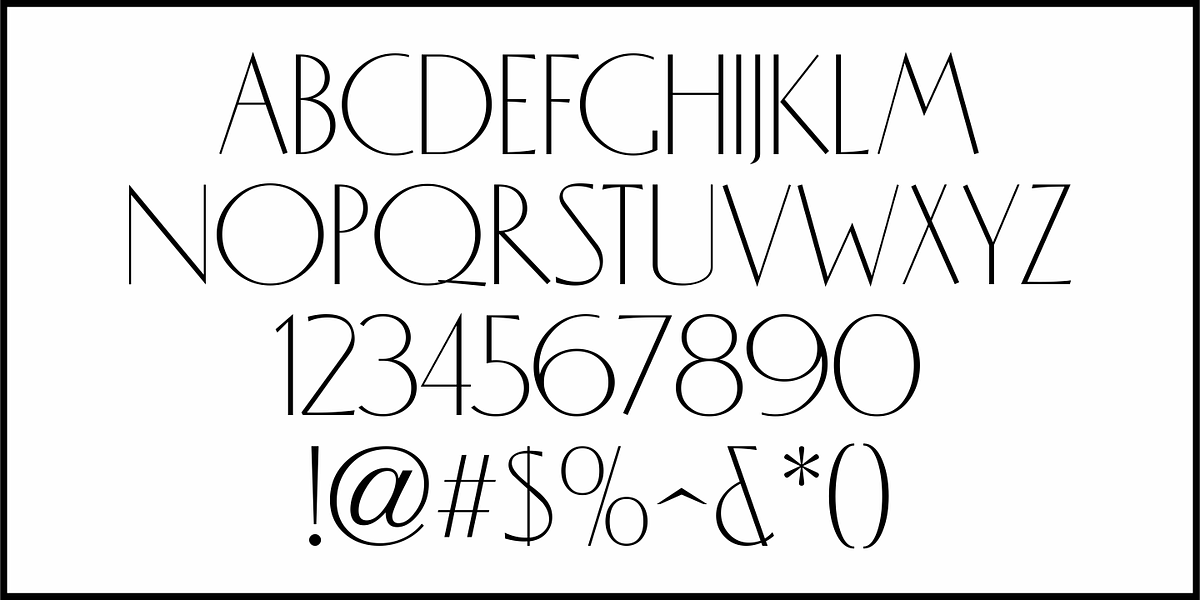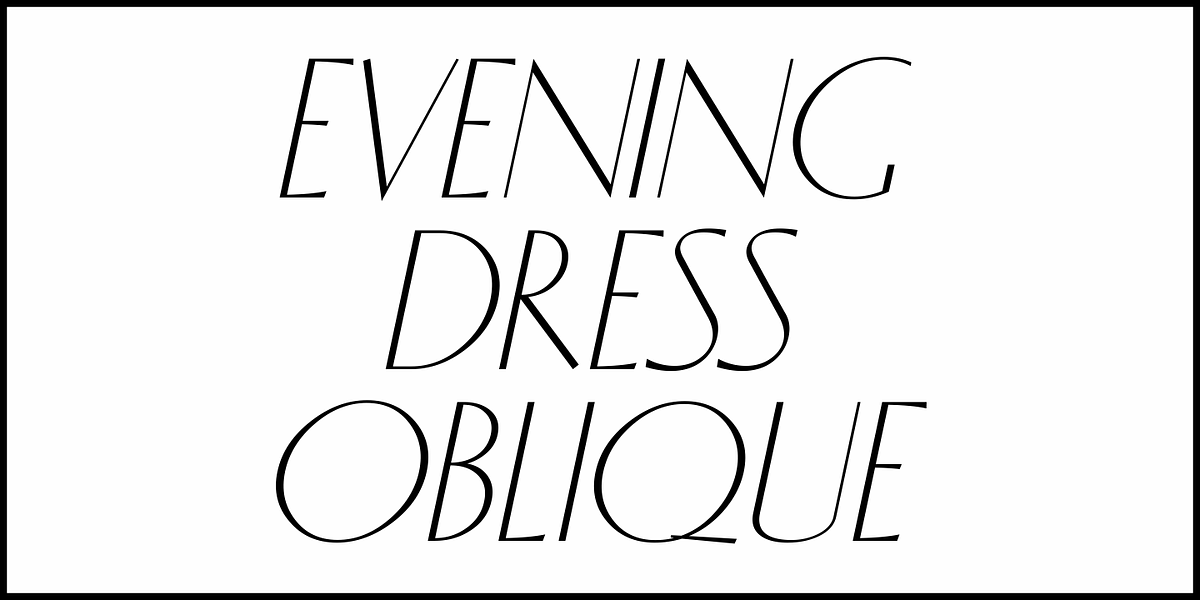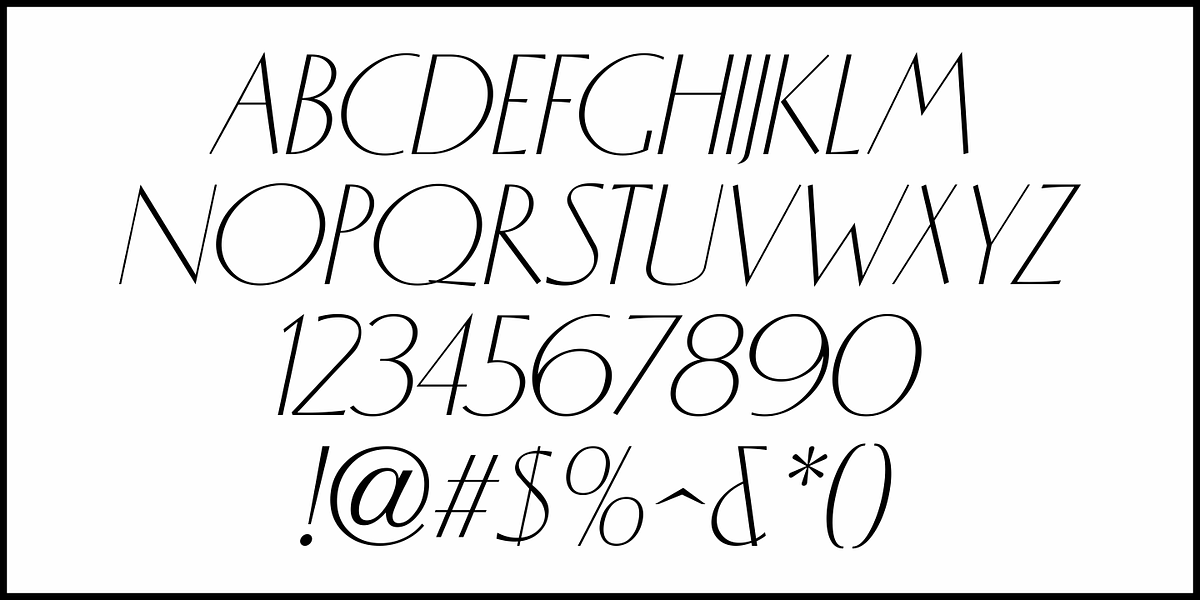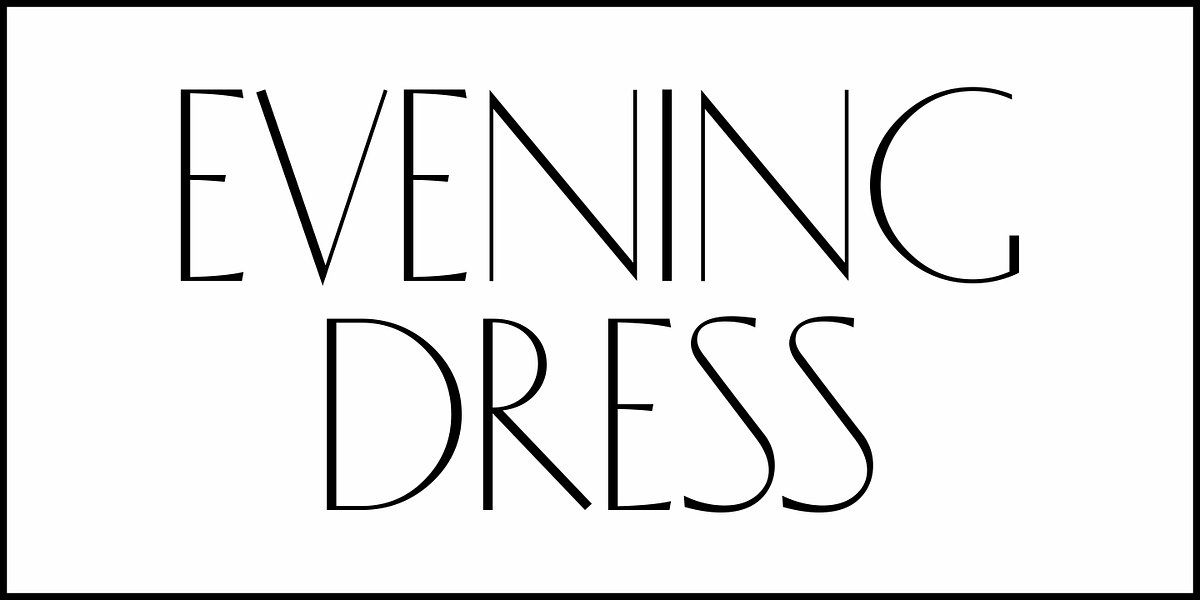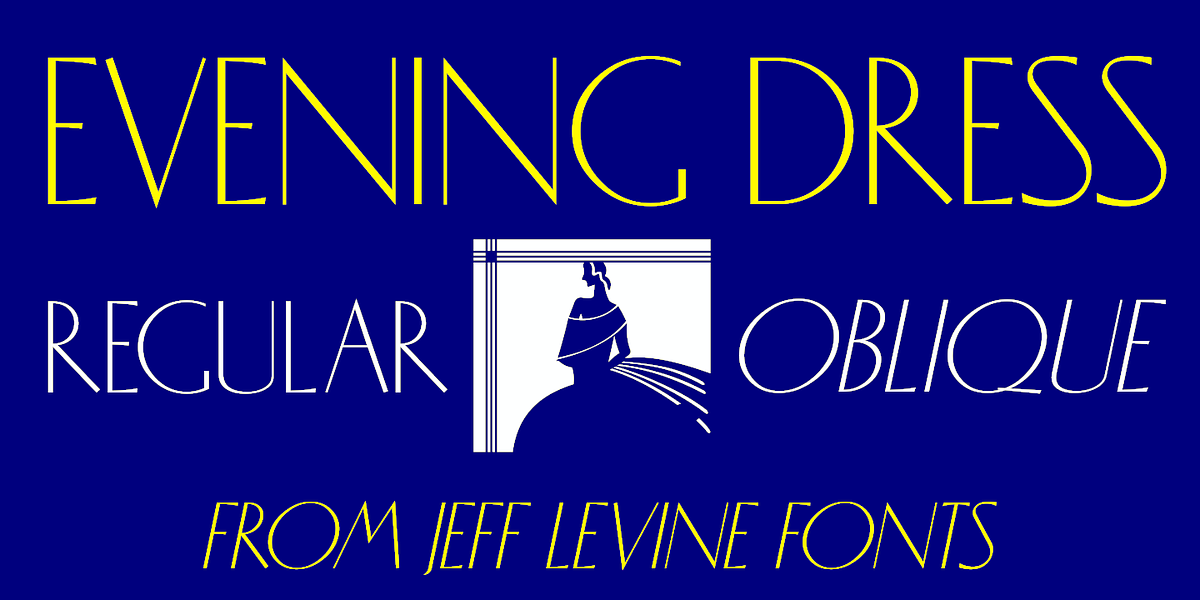
Evening Dress JNL
Thin, elegant and thoroughly Art Deco is the thick-and-thin (slightly flared) alphabet found on page 31 of Samuel Welo’s 1930 instructional book “Lettering Practical and Foreign”.
Redrawn digitally as Evening Dress JNL, it is available in both regular and oblique versions.